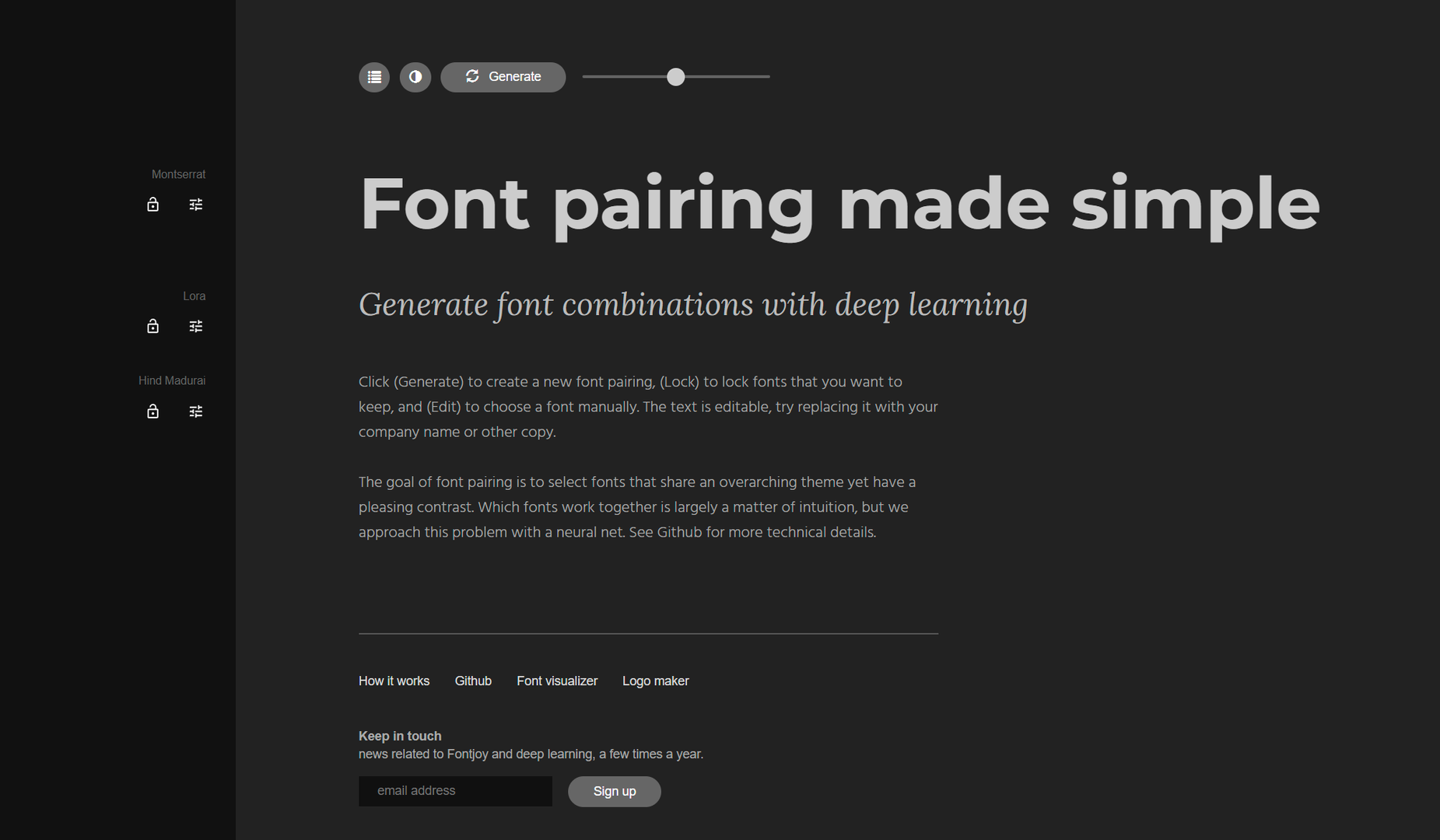
Best Google Font combinations
Introduction
Finding the best Google Font combinations can feel like searching for a needle in a haystack. With thousands of fonts available, it's easy to get overwhelmed. But don't worry, this blog post is here to guide you! We'll unveil winning font pairings that can instantly elevate your website or design project. Whether you're drawn to the elegant contrast of DM Serif Display & DM Sans or the modern simplicity of Playfair Display & Source Sans Pro, we'll delve into the unique characteristics and ideal applications for each combination. Get ready to discover the power of typography and make your designs truly shine!
DM Serif Display & DM Sans
For a timeless pairing that exudes both professionalism and modernity, look no further than DM Serif Display and DM Sans. DM Serif Display, with its stately serifs and classic proportions, anchors the combination with an air of heritage and elegance.
In contrast, DM Sans provides a refreshing counterpoint. Its clean lines and straightforward letterforms bring a contemporary feel, ensuring the pairing feels current and approachable. This best google font combination works beautifully for websites and projects aiming for a sophisticated yet welcoming aesthetic, such as lifestyle brands, editorial platforms, or design agencies.
Work Sans & Merriweather
When readability is paramount, but you don't want to sacrifice style, the pairing of Work Sans and Merriweather emerges as a top contender among the best Google font combinations. Work Sans, with its clean, neutral design and generous x-height, excels at delivering text in a clear and approachable manner.
However, simplicity doesn't mean boring. Merriweather, with its strong, expressive serifs and slightly condensed letterforms, adds a touch of personality and rhythm to the pairing. This combination shines in applications where long-form content needs to captivate readers, such as blog posts, articles, or news websites.
IBM Plex Sans Condensed & IBM Plex Sans
The IBM Plex font family is renowned for its versatility and modern aesthetic, making it a favorite among designers. Combining IBM Plex Sans Condensed with its sibling, IBM Plex Sans, creates a dynamic duo that's both visually appealing and highly functional.
The condensed variant, used sparingly for headings or callouts, adds a sense of visual hierarchy and impact. Meanwhile, the standard IBM Plex Sans ensures optimal readability for body text. This pairing is a top contender for best Google font combination for technology or business websites that want to project an image of innovation, clarity, and trustworthiness.
Raleway and Open Sans
For a website that feels welcoming and approachable, consider the dynamic duo of Raleway and Open Sans. These two versatile and modern fonts complement each other beautifully, creating a harmonious visual experience. Raleway, with its elegant, slightly condensed letterforms, brings a touch of sophistication, especially when used for headings.
Open Sans, a true workhorse in the world of typography, shines as a highly readable body text font. Its open letterforms and friendly curves contribute to the overall approachable feel of this best Google font combination. This pairing is an excellent choice for blogs, e-commerce sites, or any website that aims to foster a sense of warmth and connection with its audience.
Montserrat and Oswald
When aiming for sleek sophistication with a modern edge, Montserrat and Oswald are your go-to choices among best Google font combinations. Montserrat, with its geometric forms and clean lines, adds a touch of urban chic to any design. Its versatility allows it to shine in both headings and body text, making it a true multitasker.
Oswald, another geometric sans-serif font, complements Montserrat beautifully. Its slightly condensed letterforms and subtle quirks add visual interest without sacrificing readability. This pairing is a match made in design heaven for websites or projects that want to project an image of modernity, sophistication, and cutting-edge style.
Sniglet and Cabin
For designs that radiate a sense of playfulness and whimsy, look no further than the charming pairing of Sniglet and Cabin. Sniglet, with its rounded letterforms and jaunty curves, instantly injects a sense of fun into any project. It's a font that begs to be used for headlines or titles that need a dose of personality.
Remember, the most effective font pairings enhance readability while also reflecting the unique personality and purpose of your project. Experiment with different combinations, consider your target audience, and don't be afraid to trust your design intuition.